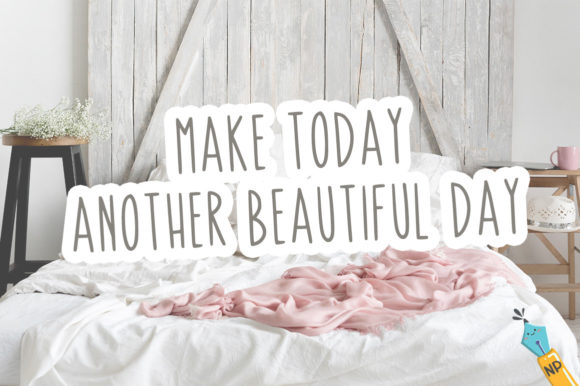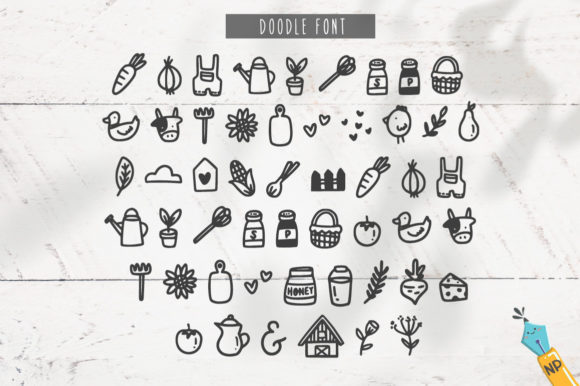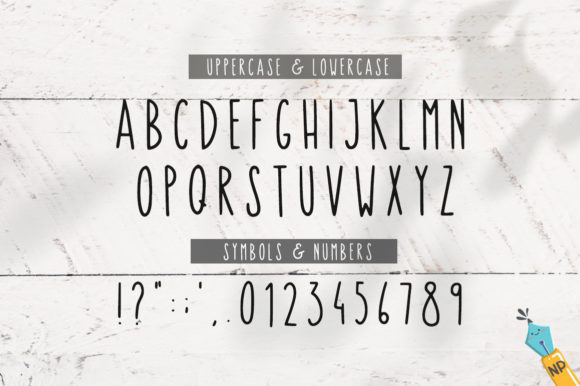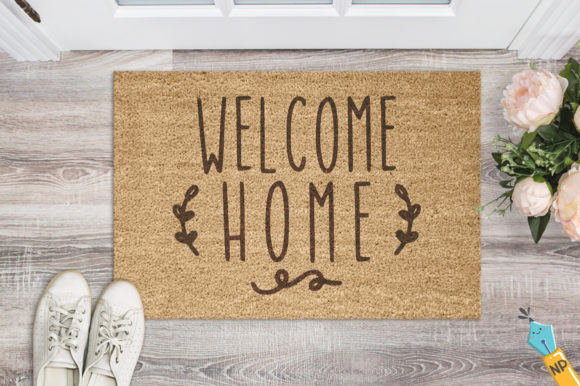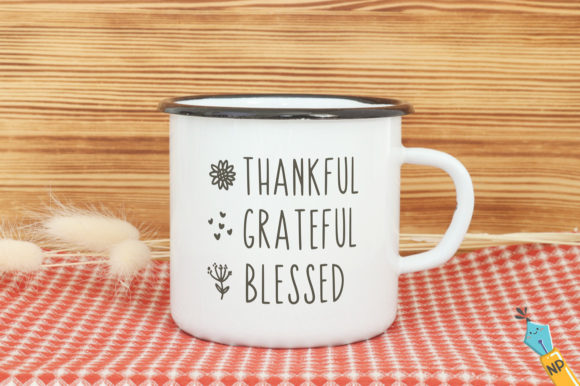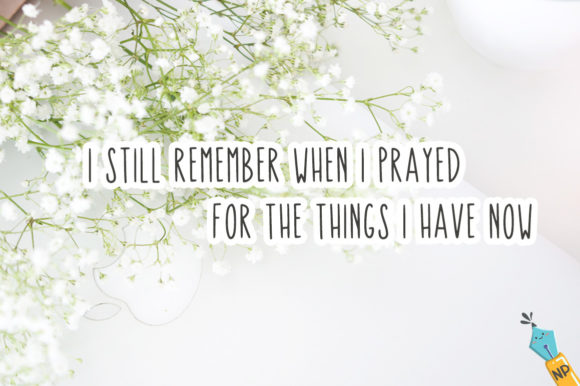
Introduction to Farm to Table Font
As a crafter, have you ever found yourself in the midst of a creative project, struggling to find the perfect font to bring your vision to life? I know I have. The search can be overwhelming, especially when you’re looking for a font that perfectly captures the essence of your project’s theme. That’s why I’m excited to introduce you to the Farm to Table Font, a sweet duo font that’s sure to become your new go-to design resource.
This high-quality font is incredibly versatile, making it perfect for a variety of crafts, from vinyl stickers to labels, t-shirts, and more. With its modern and rustic look, it’s the perfect addition to any design project. And the best part? It’s available for free download, so you can start using it right away. Whether you’re a seasoned designer or a crafty beginner, the Farm to Table Font is a valuable resource that’s sure to elevate your designs.
Key Features of Farm to Table Font
- High-quality font design with a focus on modern, rustic elements, perfect for a creative project.
- Includes a range of unique characters and glyphs, including ligatures and swashes, to add a touch of personality to any design.
- Designed to be versatile and easy to use, making it an excellent design resource for both beginners and experienced designers.
- Perfect for designs related to food, agriculture, and the outdoors, or any project that requires a rustic, natural feel.
Honest Review: Farm to Table Font
I recently stumbled upon the Farm to Table Font, and I’m excited to share my honest review with you. As a designer, I’m always on the lookout for high-quality design resources that can elevate my creative projects.
What works well about the Farm to Table Font is its clean and rustic aesthetic, perfect for projects that require a touch of natural charm. The font is available for free download, which is a huge plus in my book. The transparent background also makes it easy to customize and pair with other design elements.
However, I do have a few minor quibbles. The font selection is limited, and it might not be suitable for projects that require a wide range of font styles. Additionally, the font could benefit from more variations in terms of weight and style.
Overall, the Farm to Table Font is a great addition to any designer’s toolkit, especially for projects that require a rustic or natural aesthetic. While it has its limitations, I appreciate its high quality and versatility.
The Farm to Table Font is a free download that offers a high quality design resource for your creative project. It’s a perfect addition to any food-related design, from menus to packaging.
To get the most out of the Farm to Table Font, use it in conjunction with a transparent background to create a clean and modern design. You can also experiment with different font sizes and colors to create a visually appealing design.
The Farm to Table Font is perfect for use in food-related designs, including menus, packaging, and social media graphics. It’s also a great resource for bloggers and influencers who want to add a touch of elegance to their designs.